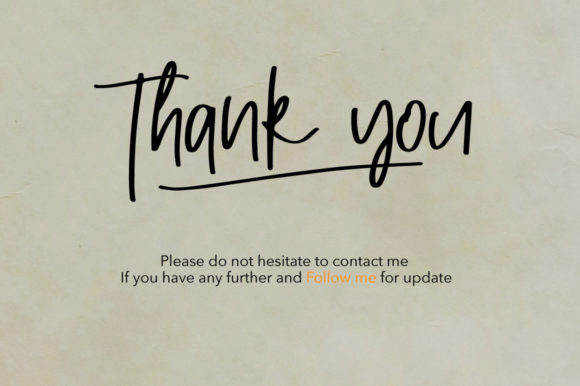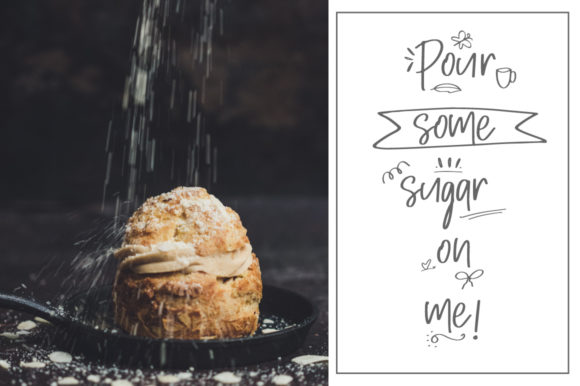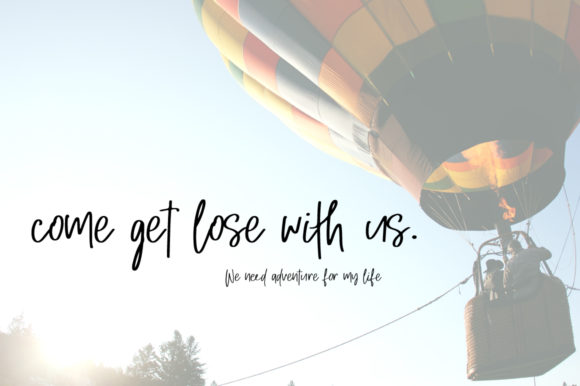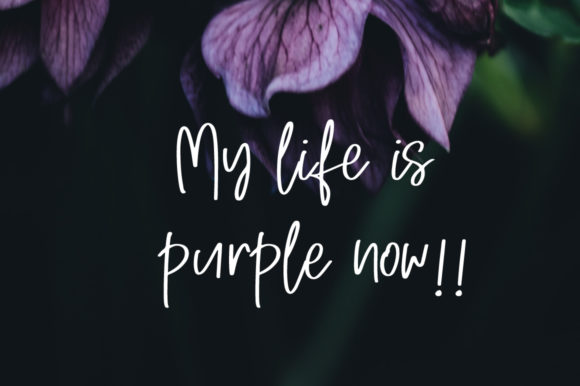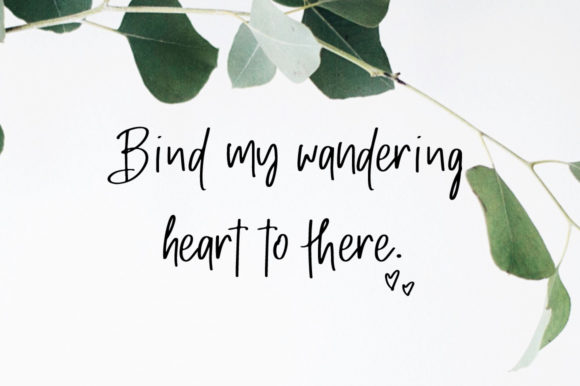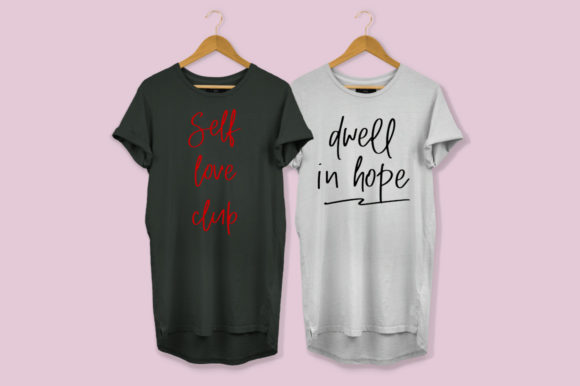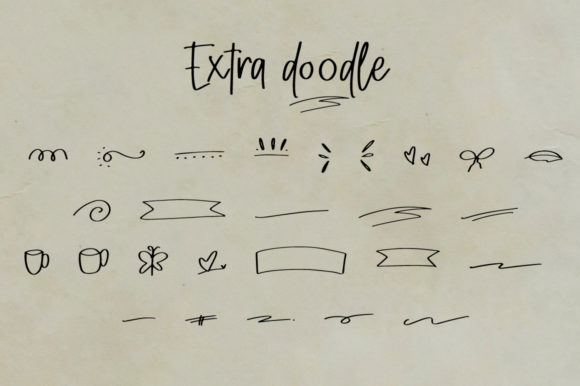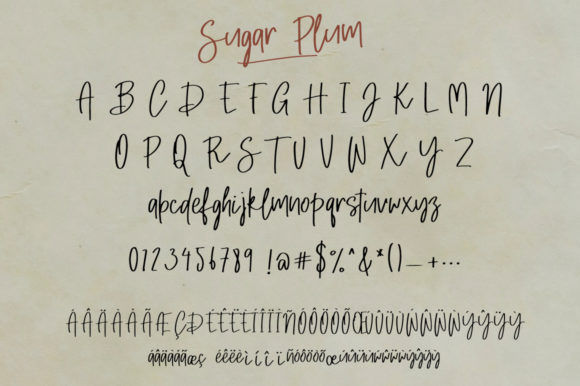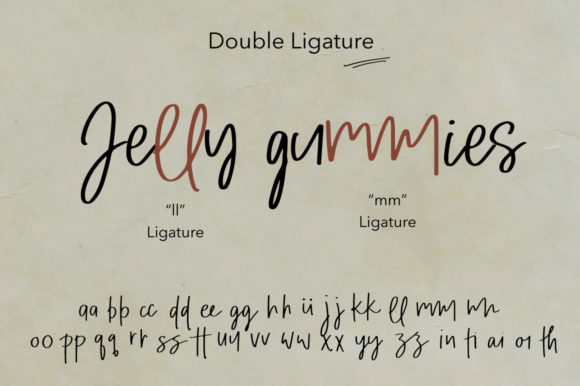
Sugar Plum Font
About Sugar Plum Font
The Sugar Plum is a classy signature font. It has an elegant style and comes with extra doodles to spice up your designs.
Every single letter has been created carefully to add some class to your designs!